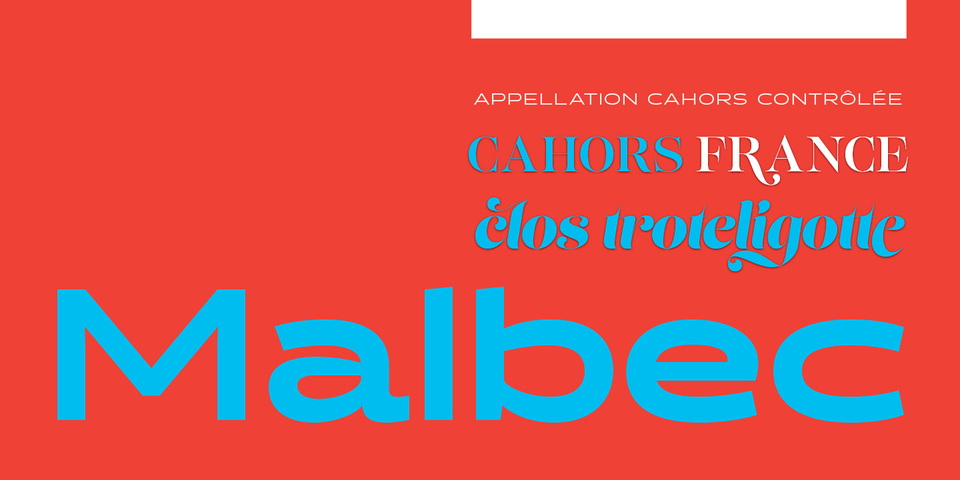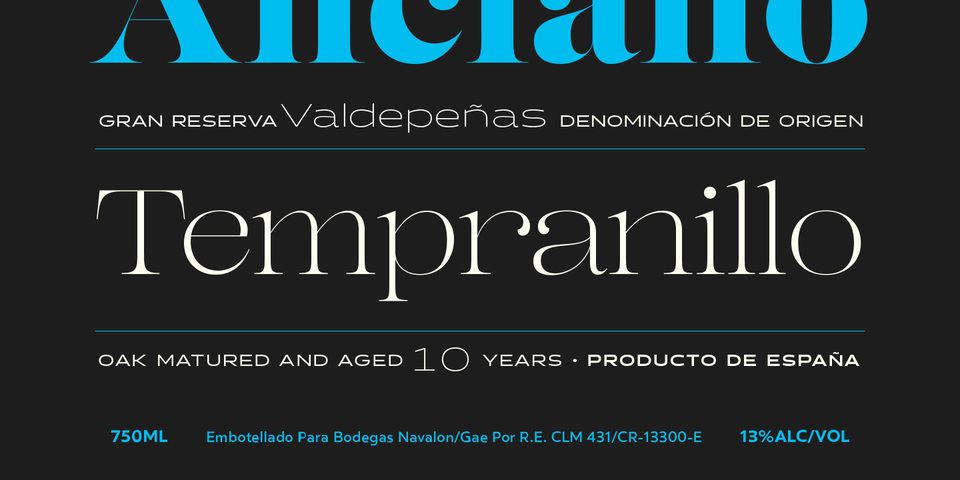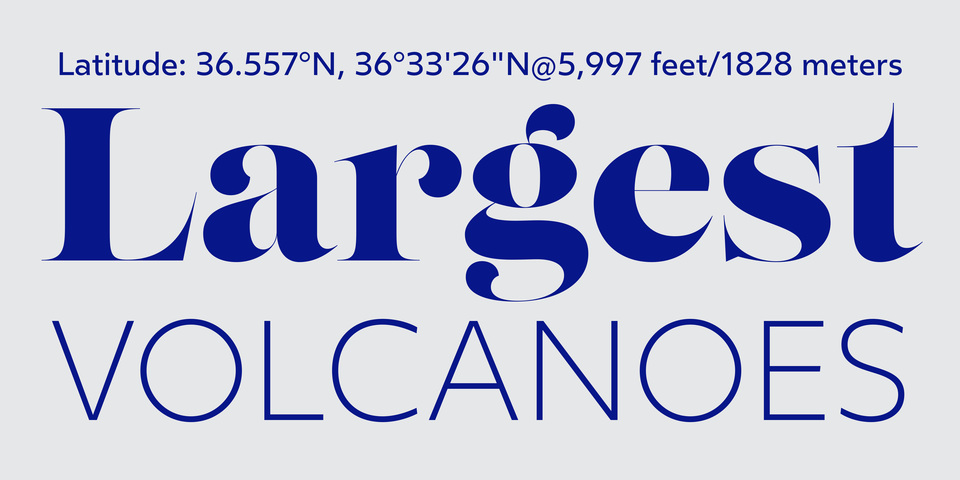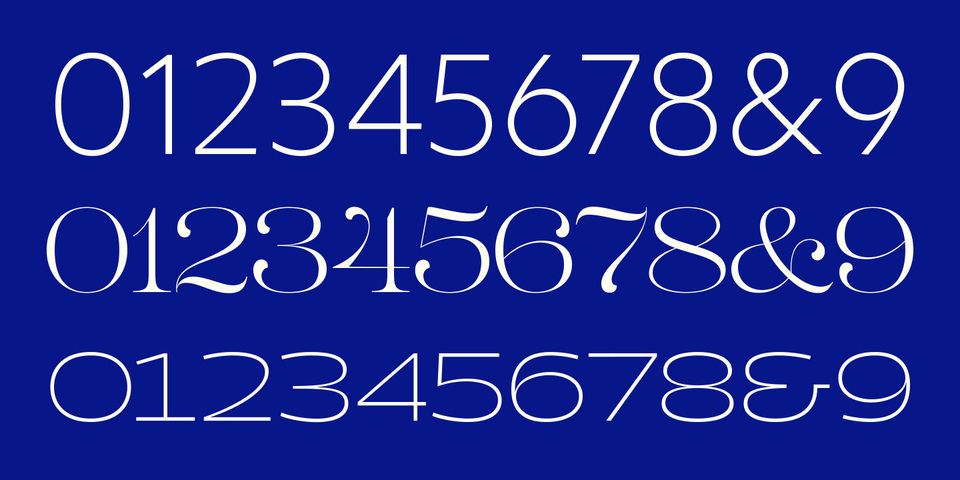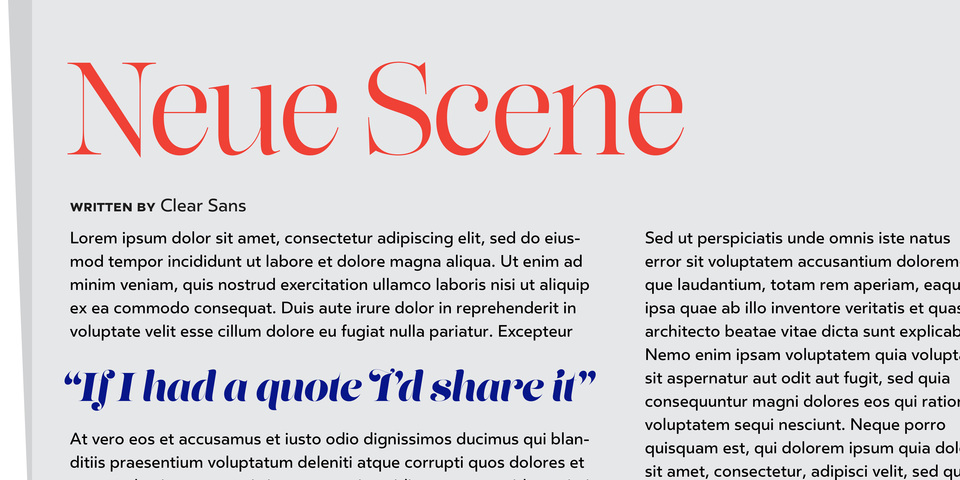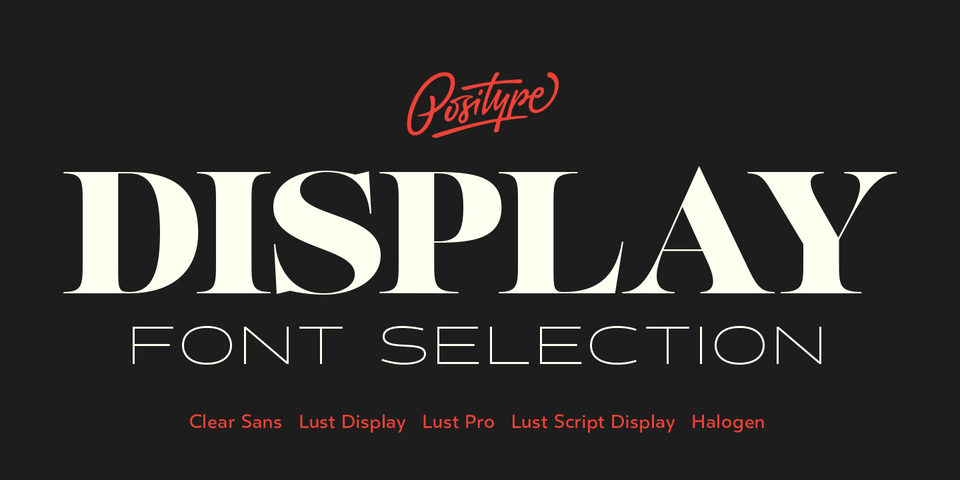
Positype Display Font Collection
Positype has been one of the most recognized and award-winning independent type foundries around. When tasked with picking which display typefaces from the library worked well together, Neil Summerour compiled a special collection of typefaces of varying contrast, width, and weight—all chosen to work well together in almost any environment.